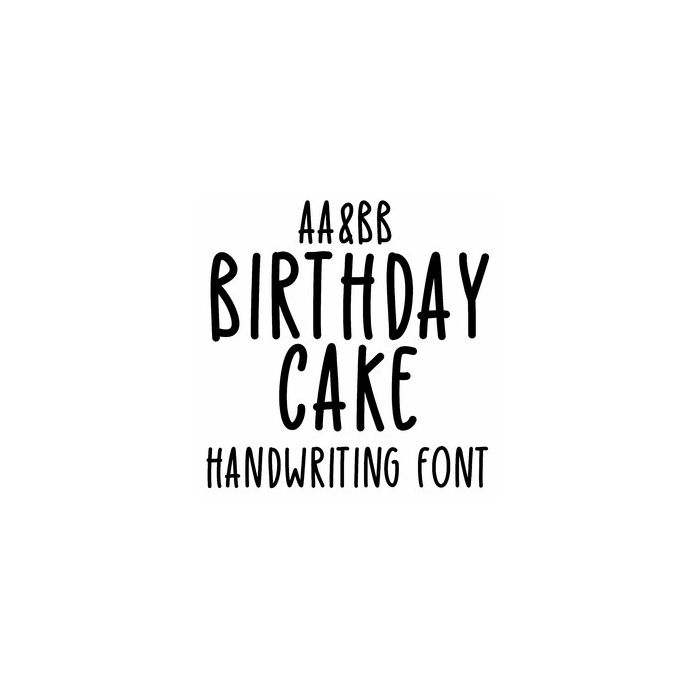
Birthday Cake is a cute marker handwriting font for Easter crafts, Birthday gifts, monograms, planners, labels, and personalization projects. All capitals alphabet, numbers, and punctuation.